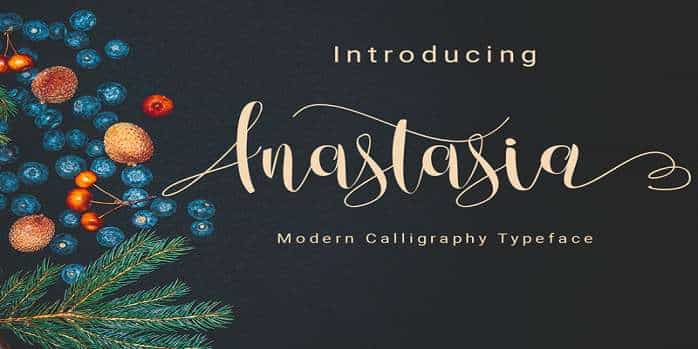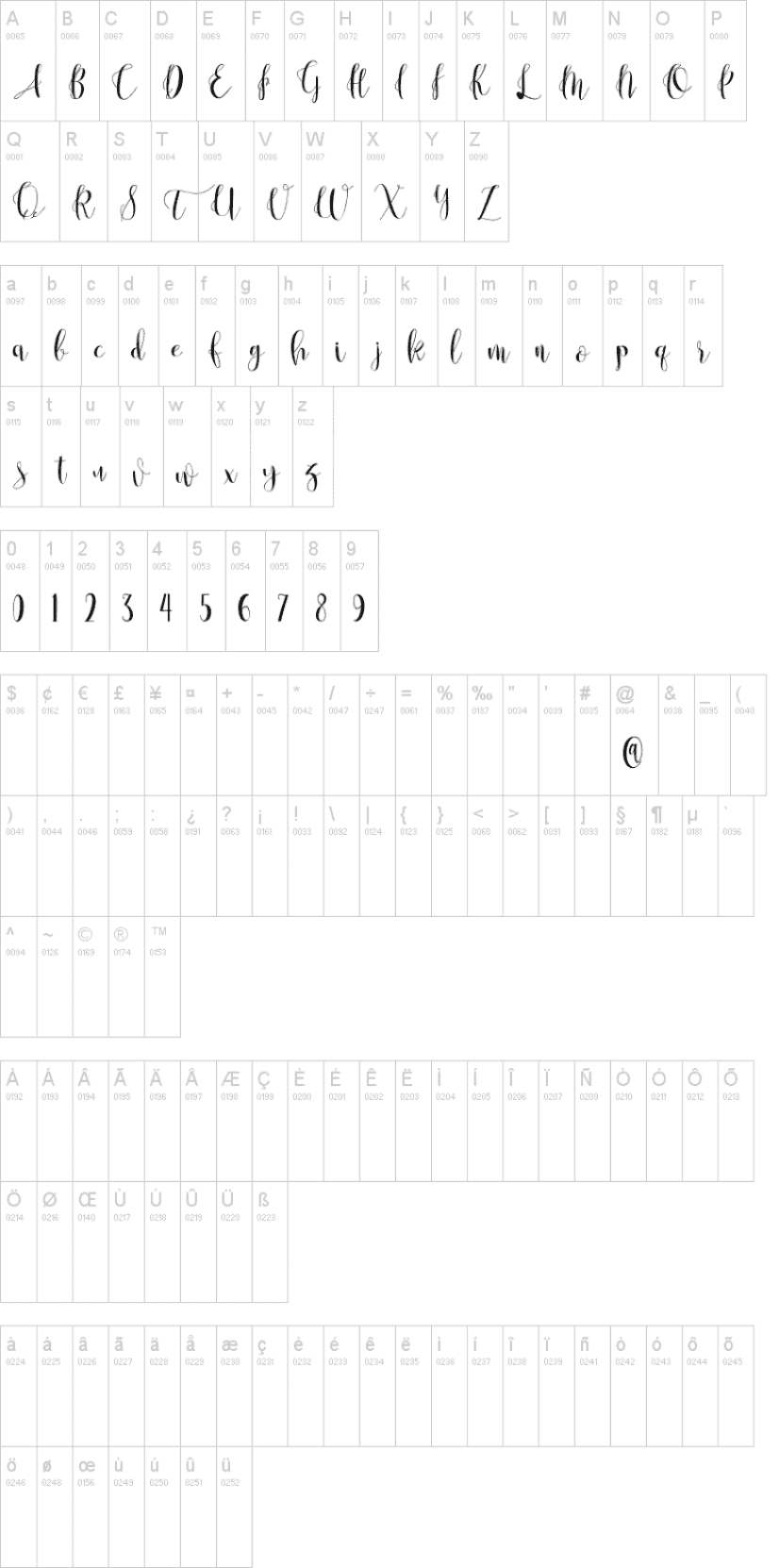
Here is the new style of the font Anastasia Script with such nice hand scratches that I have included in this font I hope you will find it interesting if you want to use this font for your work this font is very easy to use and simple to implement because this font contains all the necessary options such as the lower and uppercase letters and different types of punctuation marks numbers and multilingual support.